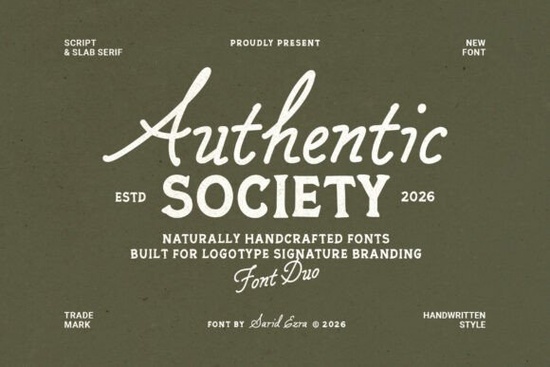
When you're looking for a font that adds a personal touch to your designs, Authentic Society is a great choice. This handmade font duo combines a slab serif with a handwritten monoline script, making it perfect for a variety of creative projects. Whether you're working on branding, logos, quotes, or wedding invitations, Authentic Society brings a natural, handcrafted feel to your work.
Why Choose Authentic Society Font?
Authentic Society stands out because of its versatility and the natural vibe it brings to any project. The combination of a slab serif and a handwritten script allows you to create designs that are both professional and personal. This makes it an excellent choice for designers, crafters, print-on-demand sellers, small businesses, and creative hobbyists who want their work to have a unique, handcrafted look.
How Can You Use Authentic Society in Your Projects?
One of the best things about Authentic Society is its flexibility. Here are some ways you can incorporate this font into your designs:
- Branding and Logos: Use the slab serif for the main text and the script for a signature or tagline to create a balanced and visually appealing logo.
- Quotes and Social Media Graphics: The handwritten script can add a personal touch to inspirational quotes and social media posts, making them more engaging and relatable.
- Wedding Invitations: Combine both styles to create elegant and unique wedding invitations that reflect the couple's personality.
- Print-on-Demand Products: Add a custom, handcrafted feel to t-shirts, mugs, and other merchandise, making them stand out in a crowded market.
What Makes Authentic Society Unique?
The key to Authentic Society's uniqueness lies in its design. The slab serif provides a strong, clean base, while the handwritten script adds a personal, organic touch. This combination not only looks great but also feels authentic, which is essential for creating designs that resonate with your audience.
Is Authentic Society Suitable for Multi-Language Projects?
Yes, Authentic Society supports multiple languages, making it a versatile choice for international projects. Whether you're designing for a local audience or a global one, this font can help you create designs that are both beautiful and functional.
How Does Authentic Society Compare to Other Handwritten Fonts?
While there are many handwritten fonts available, Authentic Society offers a unique blend of professionalism and personal touch. Here’s how it compares to some other popular options:
- Perfect Signature: This font is known for its elegant, cursive style, making it ideal for formal and sophisticated designs. In contrast, Authentic Society has a more casual, handcrafted feel.
- Celestine: Celestine is a modern, clean script font that works well for minimalist designs. Authentic Society, with its slab serif and handwritten script, offers a more traditional, handcrafted look.
- Royal Wedding: As the name suggests, Royal Wedding is perfect for elegant and formal events. Authentic Society, while also suitable for weddings, has a more versatile and casual appeal.
- Brittney Signature: Brittney Signature is a bold, stylish script font that stands out in modern designs. Authentic Society, with its combination of slab serif and script, offers a more classic, handcrafted aesthetic.
Practical Tips for Using Authentic Society
To get the most out of Authentic Society, here are some practical tips:
- Experiment with Combinations: Try using the slab serif and script together in different ways to see what works best for your project.
- Test Different Sizes and Colors: Play around with the size and color of the font to find the perfect balance for your design.
- Consider the Context: Think about the message and the audience. Use the font in a way that enhances the overall design and resonates with your target audience.
By following these tips, you can create designs that not only look great but also feel authentic and personal. Give Authentic Society a try and see how it can transform your next project.